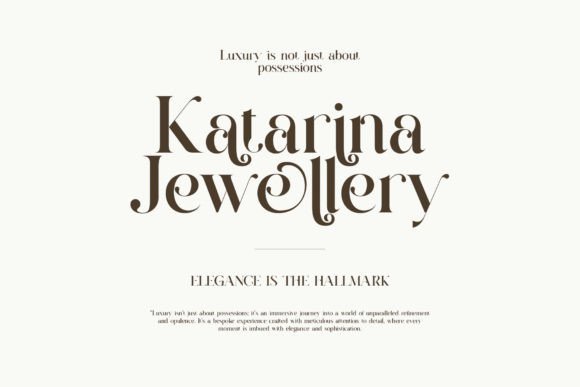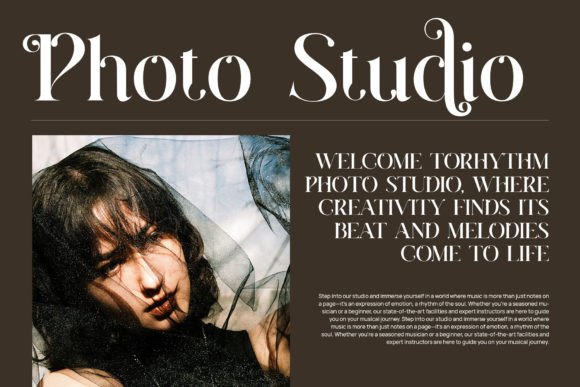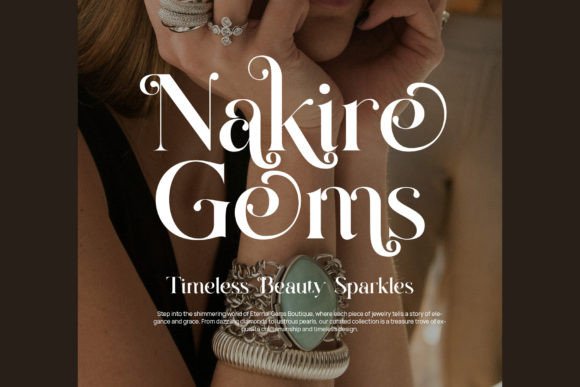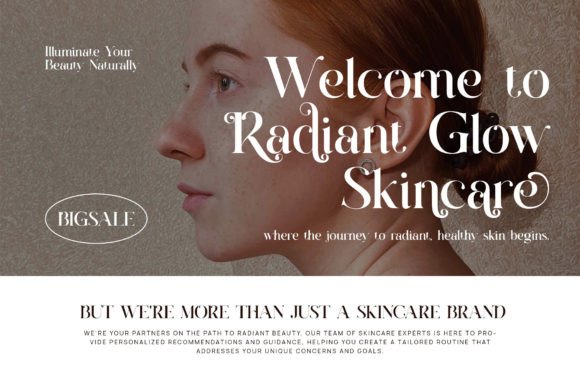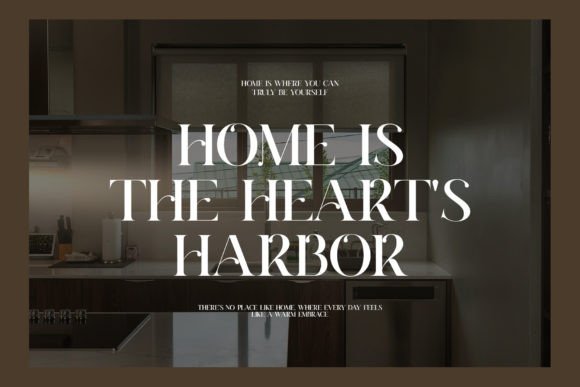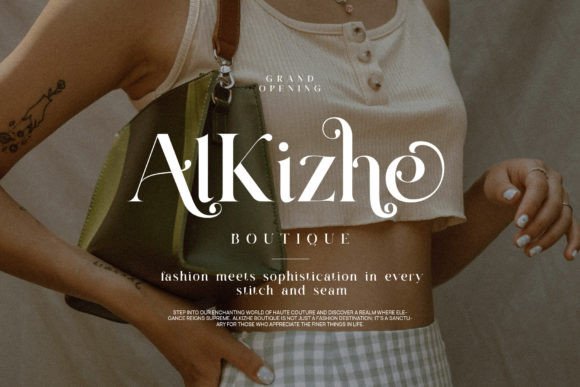
Introduction to Ragike Font
Have you ever stumbled upon a font that perfectly captures the essence of your creative vision? For designers, finding the right font can be a game-changer, elevating their projects from good to great. It’s a moment of pure excitement, when all the elements come together in harmony, and that’s exactly what the Ragike Font offers.
With its sophisticated and charming design, the Ragike Font is a modern serif typeface that’s perfect for a wide range of creative projects. Whether you’re working on a beauty design, elegant crafting, or layout design, this font is sure to bring a touch of elegance and sophistication to your work. Plus, with a transparent background and high-quality design, it’s a valuable resource for designers looking to take their projects to the next level.
Key Features of Ragike Font
- Ragike Font is a high-quality design resource ideal for creative projects requiring a unique touch.
- This font is perfect for designers seeking a distinctive look for their creative project, with a unique blend of elegance and sophistication.
Honest Review: Ragike Font
I recently stumbled upon the Ragike Font, and I’m excited to share my thoughts on this design resource. As a designer, I’m always on the lookout for high-quality fonts that can elevate my creative projects.
One of the things I appreciate about Ragike Font is its unique aesthetic. The font has a quirky, hand-drawn feel that adds a touch of personality to any design. I’ve used it for a client project, and it’s definitely a conversation starter! ✨
Here are some of the key features that make Ragike Font stand out:
While I love the Ragike Font, there are a few limitations to keep in mind: ⚠️
- Some users may find the font’s quirky feel too busy or overwhelming
- The font may not be suitable for large blocks of text, as it can become difficult to read
Overall, I’m impressed with the Ragike Font. It’s a unique and high-quality design resource that can add a touch of personality to any creative project. If you’re looking for a font that will help you stand out, Ragike Font is definitely worth checking out!
Ragike Font is suitable for a wide range of creative projects, including logos, icons, graphics, presentations, and documents.